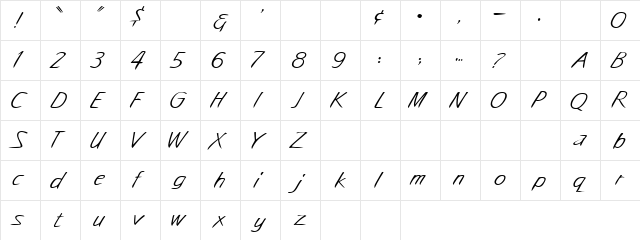
0 CazLite DNA Regular
Design Context for 0 CazLite DNA Typeface
0 CazLite DNA offers clean, dependable letterforms without strong stylistic allegiance, making it a practical choice for designers who need flexibility.